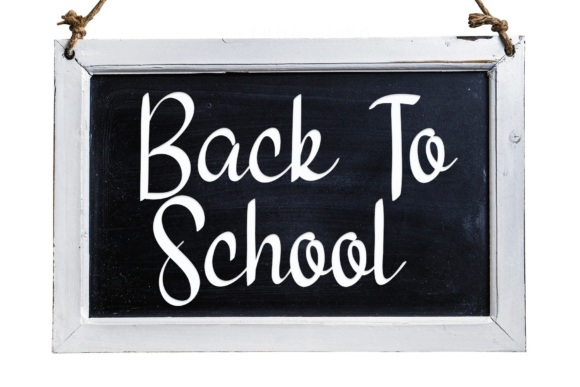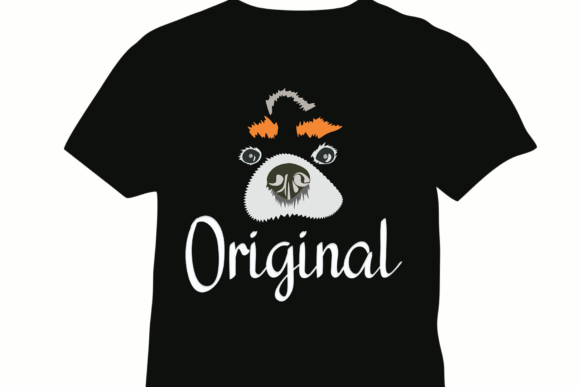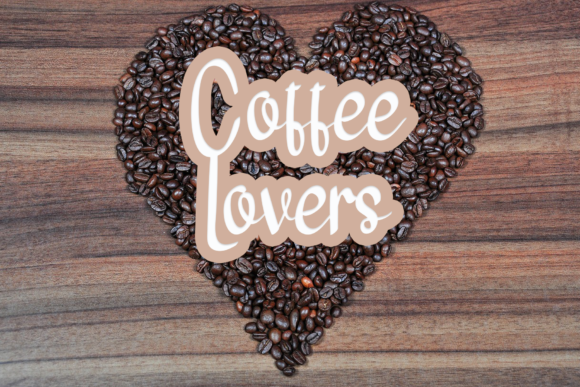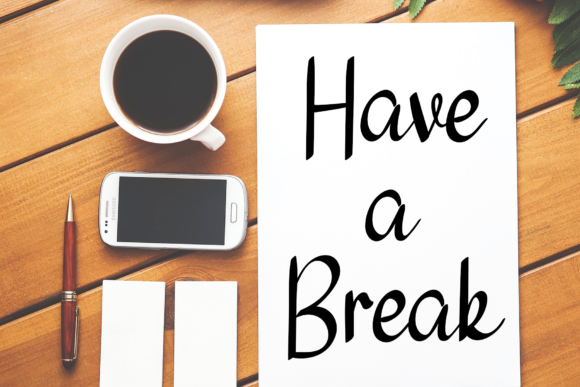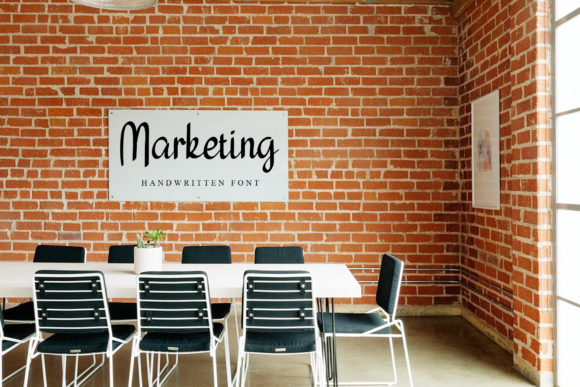
Hello Summer Font
Hello Summer is a trendy script font carefully created with a touch of elegance. Whether you’re looking for fonts for Instagram or calligraphy scripts for DIY projects, this font will turn any creative idea into a true piece of art!